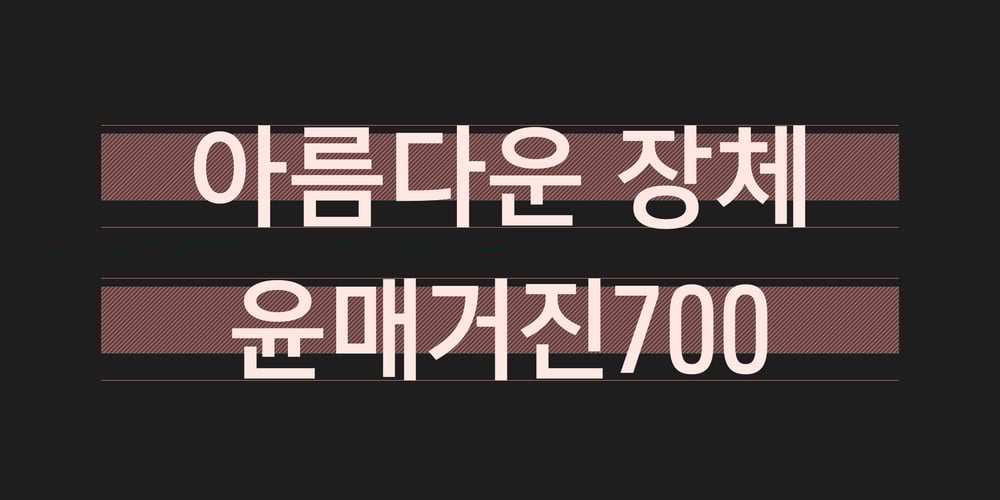
Yoon Magazine 700 Font Family was designed by Yoon Design Team and published by Yoon Design. Yoon Magazine 700 contains 9 styles and family package options. Yunmagazine 700 is a long-form style font designed to convey all the details and nuances of a piece of writing on a limited page or digital screen. A space that doesn’t suffocate even with all the information. Feel it with Yoon Magazine 700.